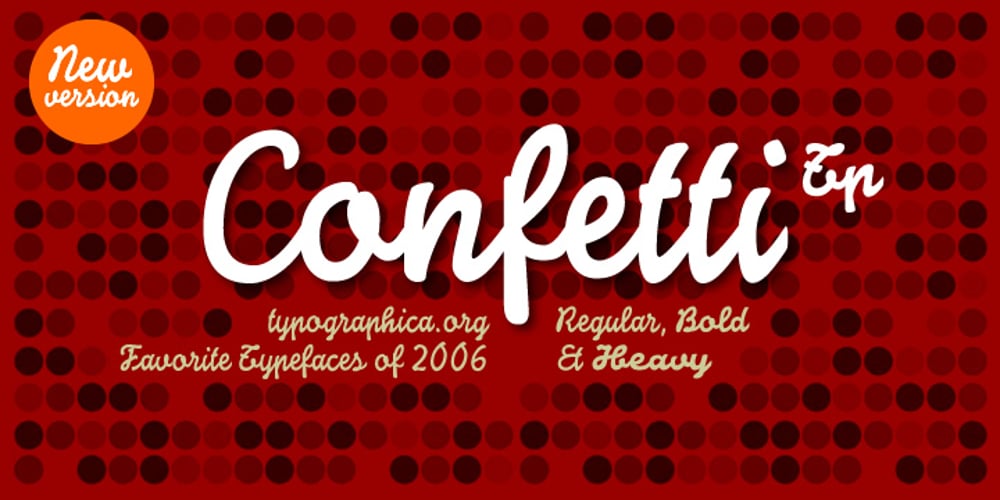
Confetti TP Font Family was designed by Josep Patau and published by Tipo Pèpel. Confetti TP contains 3 styles and family package options. The Confetti is a typeface created about 1930 by the defunct José Iranzo foundry in Barcelona, and imitates the forms and gestures of handwriting created with a round nib as “Speedball”Series B. The original typefaces were a pair, called “Escritura Energica ” and “Escritura maravilla”. The typography has a dynamic air, caused partially by irregular alignment of the characters respect to the baseline and aesthetics takes us to the proposed commercial lettering or advertising of years 20-30. Confetti was one of the fonts selected by the website Typographica.org in its prestigious list of “Our Favorite Typefaces” in 2006.